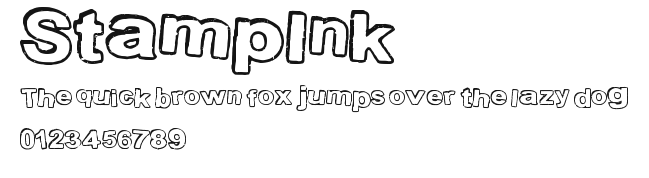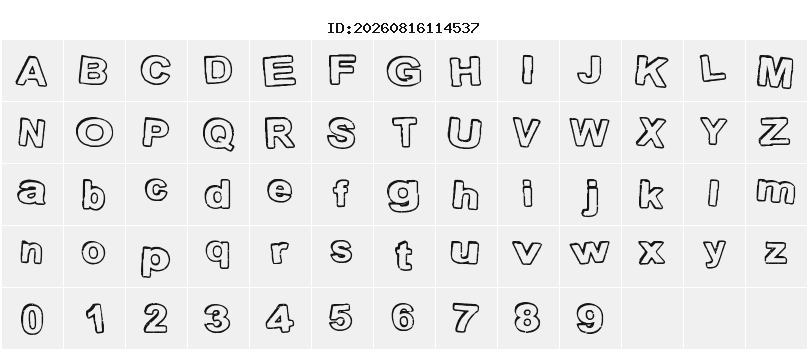
• Font Name: StampInk
• Full Font Name: StampInk
• Version: Version 1.00 September 5, 2015, initial release
• Designer: Max Infeld Xerographer Fonts
• Manufacturer: Xerographer Fonts
• Description: Made by Xerographer Fonts in Chico,California
About StampInk.ttf
StampInk.ttf is a modern, elegant sans-serif font designed for ultimate readability and visual harmony. Perfect for branding, headlines, web design, and print materials.